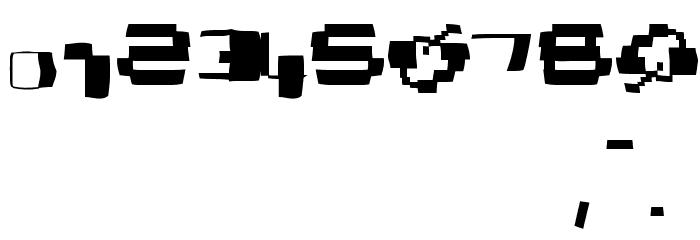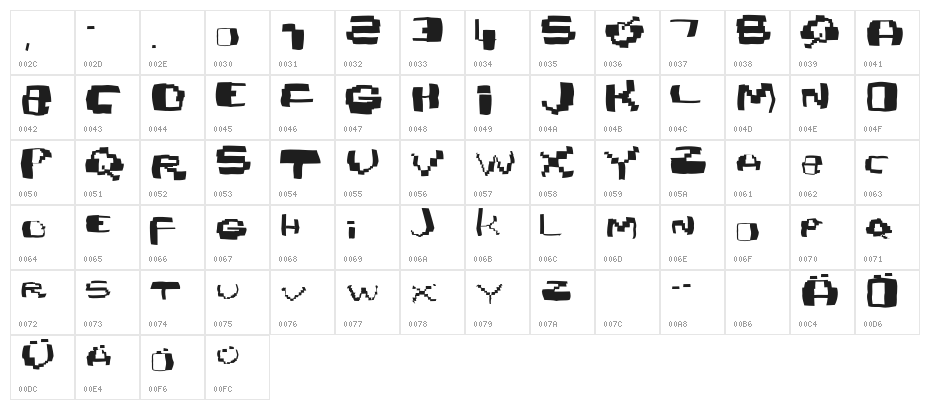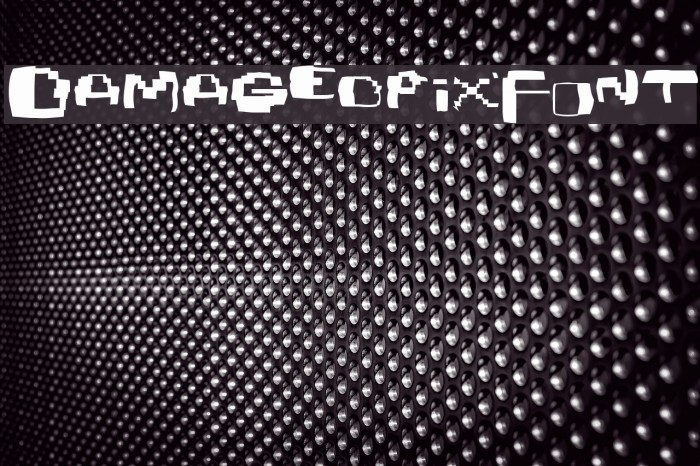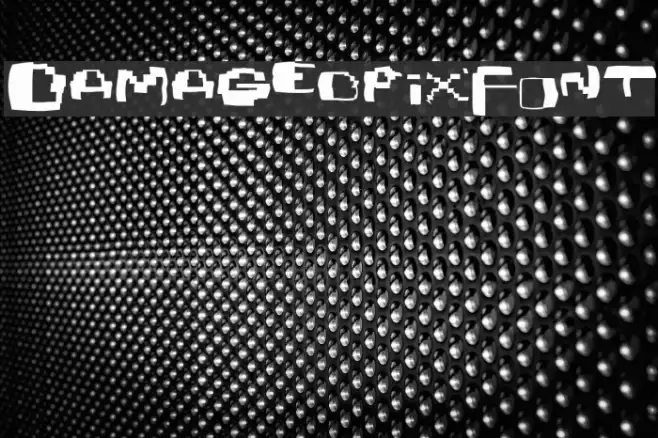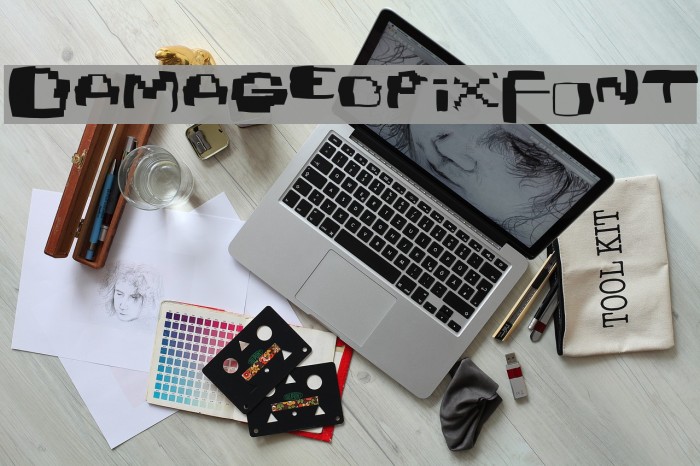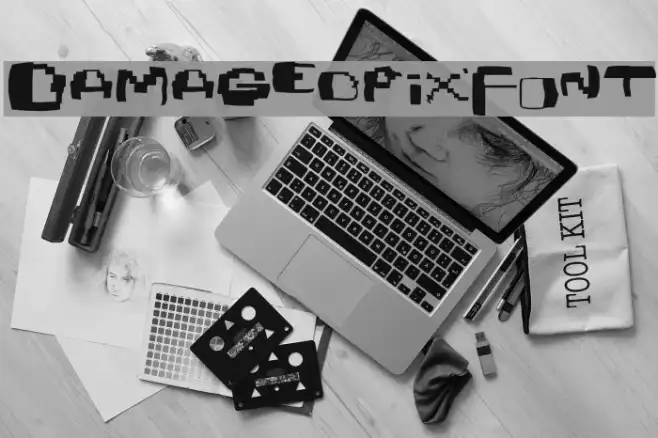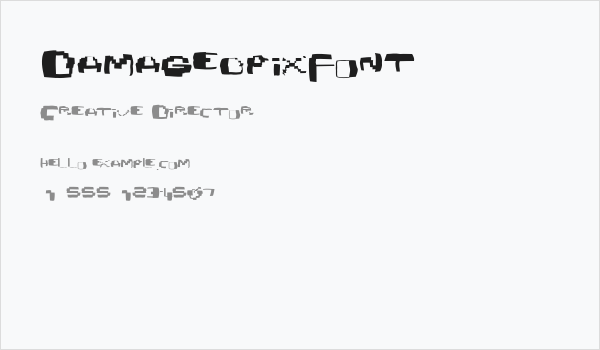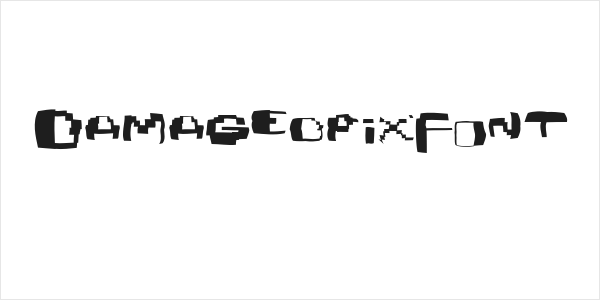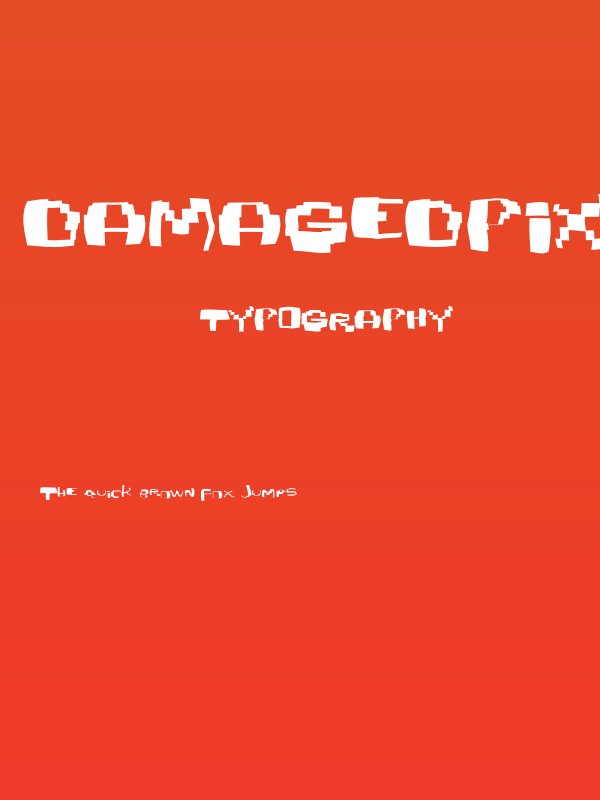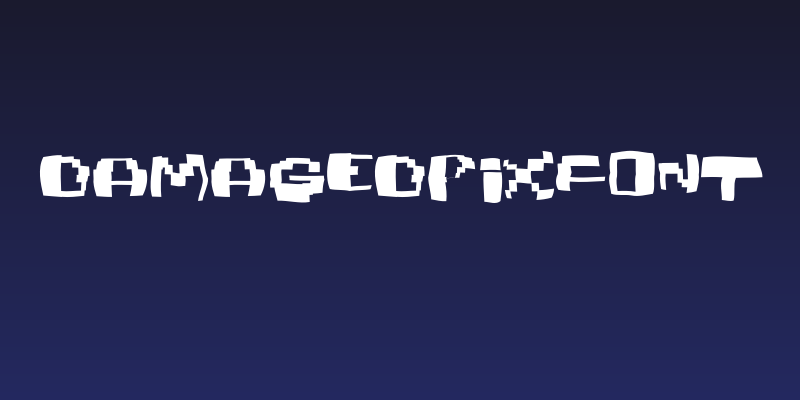
Damagedpixfont Font
Damagedpixfont Description
This font features a highly distorted and fragmented style, reminiscent of digital glitches or corrupted data. The characters are bold and irregular, with parts of each letter appearing pixelated or broken. This creates a chaotic and edgy aesthetic, making it stand out as a unique display typeface. The uppercase and lowercase letters share this fragmented design, while the numerals and special characters maintain the same theme. The overall appearance is striking and unconventional, suitable for projects that aim to convey a sense of disruption or modern digital art.
| Overall Style | Modern, Edgy |
| Proposed Projects | Ideal for digital art projects, edgy posters, album covers, or any design that requires a modern, disruptive aesthetic. |